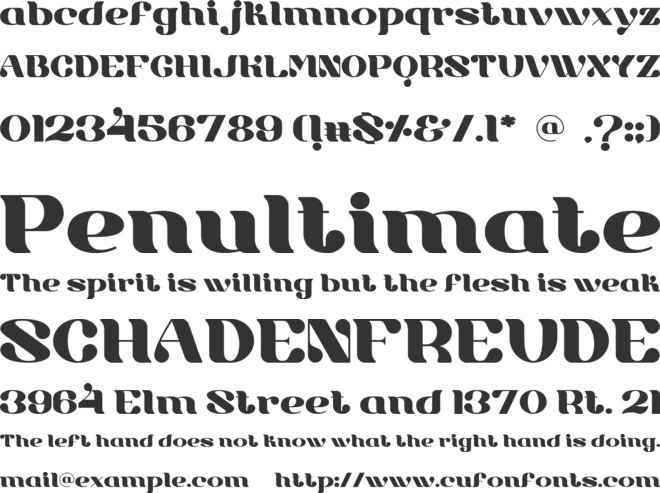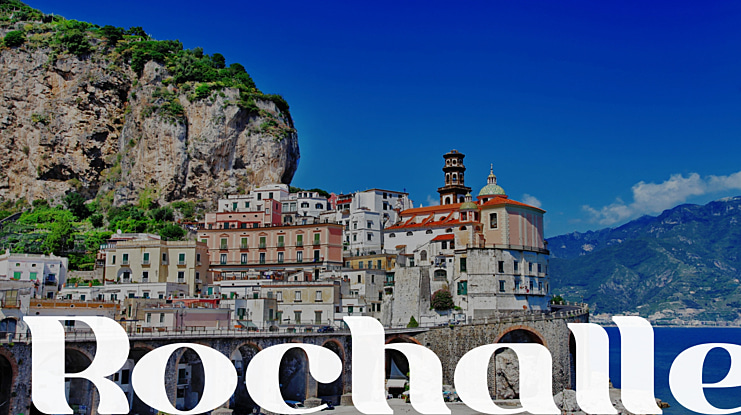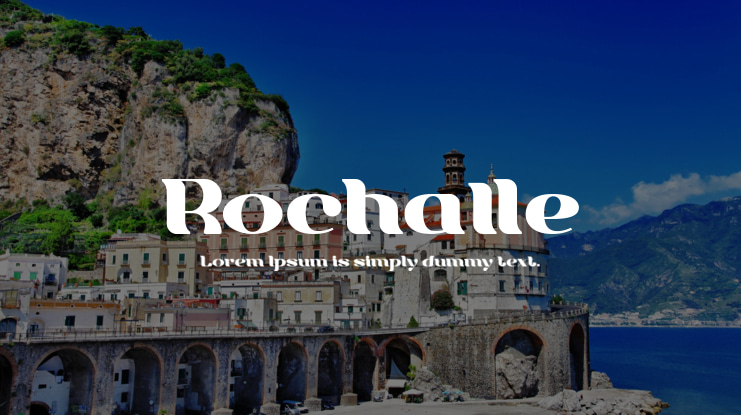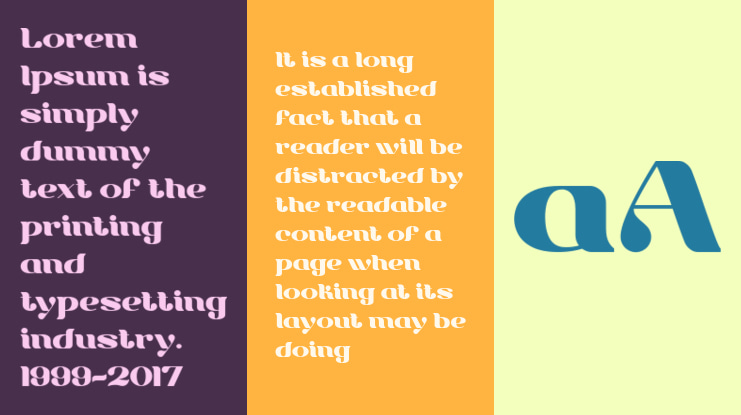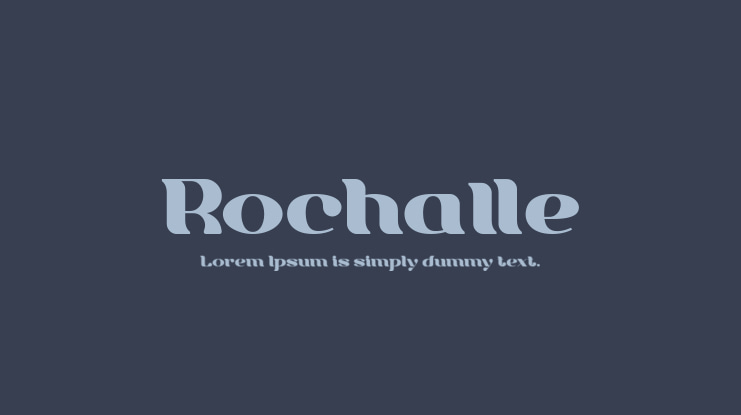
Rochalle Font
Meet our newest product, this product we call Rochalle font.
Rochalle font is a cute typeface font
A little unique and firm touch
The Rochalle font is great to use on:
fashion magazines, logos, and photography, landing pages, flyers,